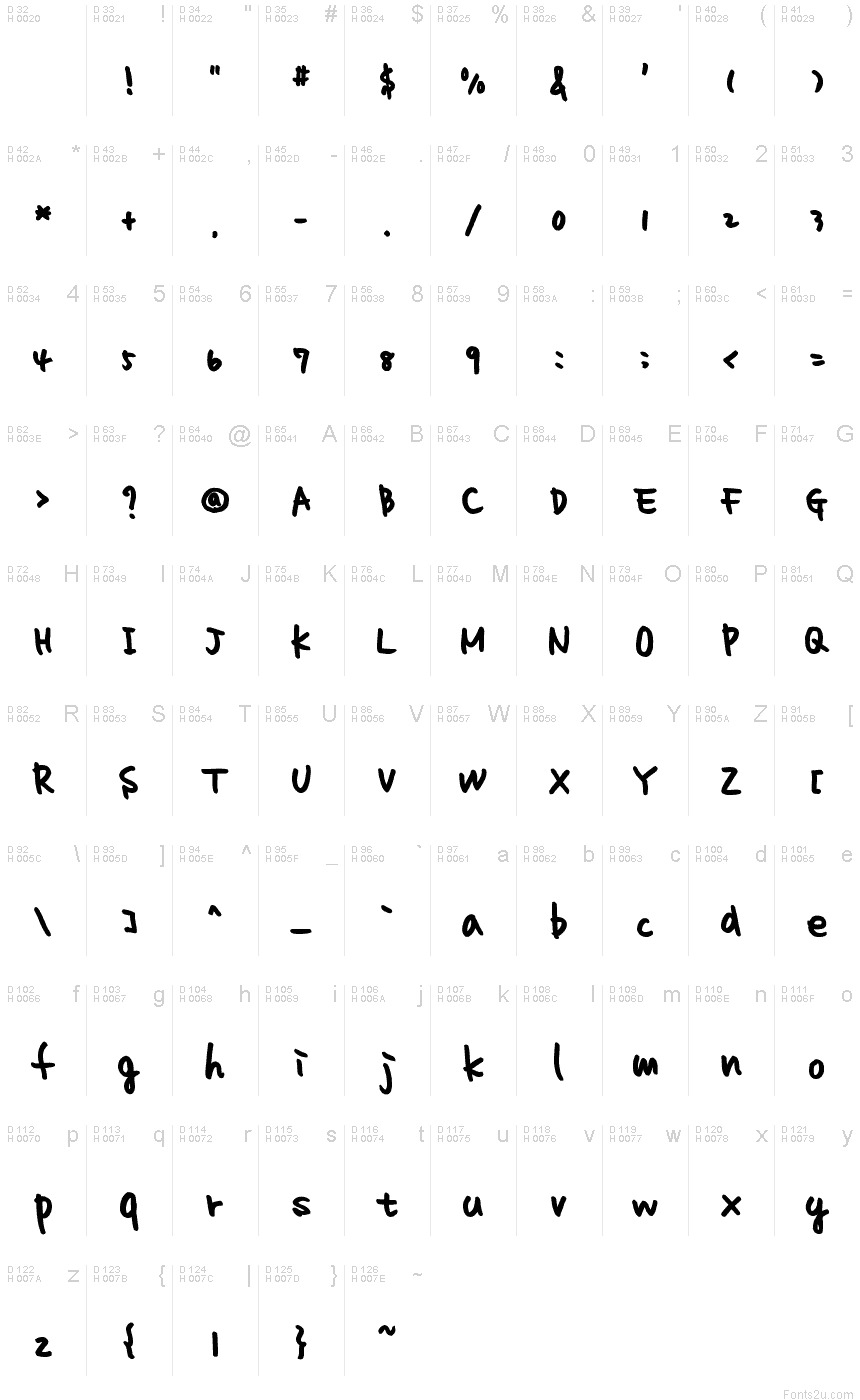
homework normal
Homework font by Futaba is a free handwritten typeface that looks like it was scrawled with a thick, slightly inky marker on the corner of a worksheet. The letters are chunky, rounded, and a bit wobbly in a charming way, giving everything a friendly, kid-at-the-desk energy. It reads quickly at a glance, so you get that casual, school-day vibe without sacrificing clarity.
Using Homework, classroom posters, kids’ worksheets, back‑to‑school flyers, educational apps, stickers, and playful social posts all feel more personal and approachable. This free font shines when you set it large and bold for headlines, then pair it with a clean sans serif for smaller explanatory text.